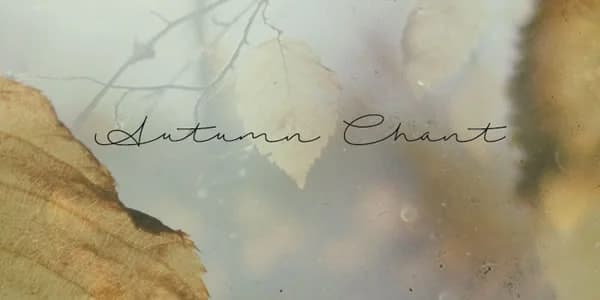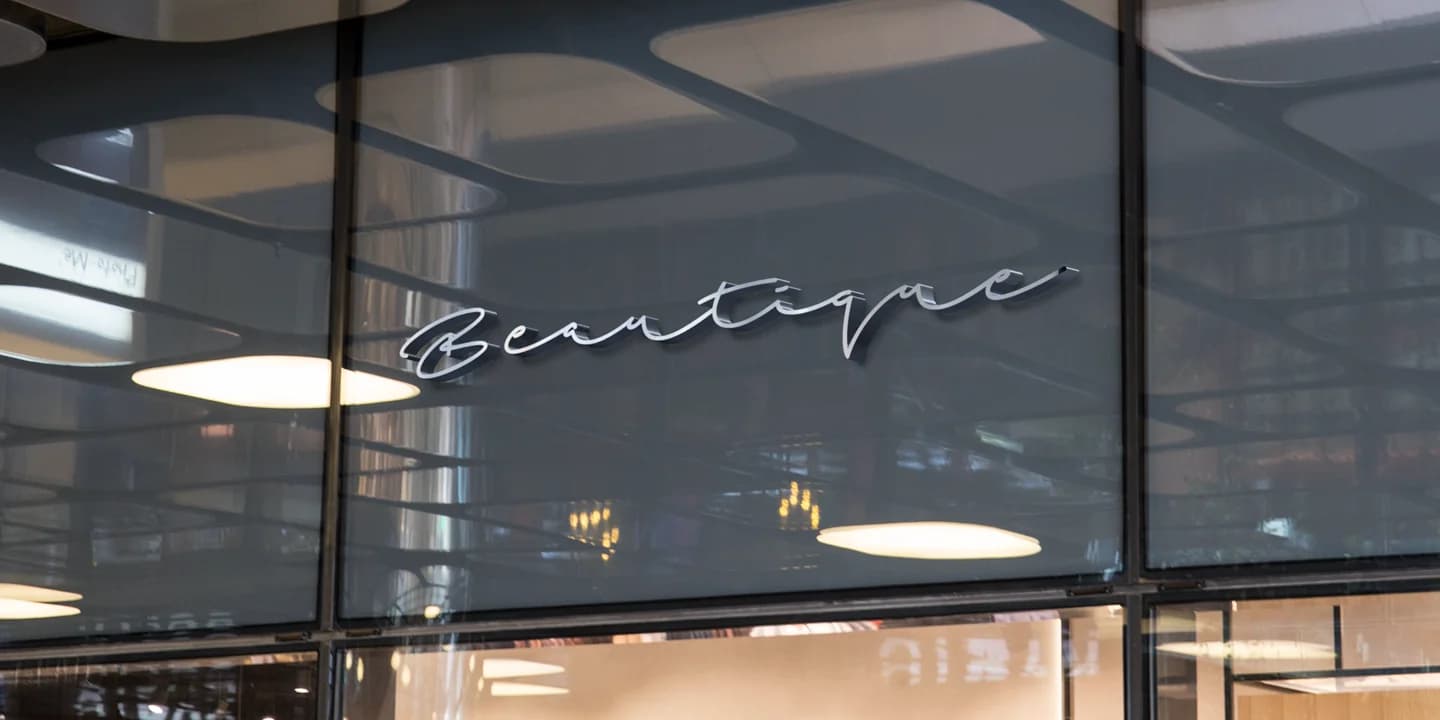
1 / 3About Beach Script Font
Beach Script by Roland Hüse Design is a monoline handwritten typeface with a casual, energetic personality that brings natural movement to contemporary typography. This font captures the relaxed rhythm of hand-lettering while maintaining excellent legibility across various sizes, making it equally at home in wedding invitation suites, editorial feature spreads, lifestyle brand identities, and custom event signage. The consistent single-weight construction provides reliable stroke flow, and the font's informal character lends itself beautifully to decorative headlines and branding applications where personality matters more than formality. Whether you're designing modern greeting cards, creating Etsy shop logos, or building social media graphics that need to stand out in crowded digital feeds, Beach Script delivers approachable elegance without pretense. The typeface performs particularly well in larger point sizes where its organic letterforms become a natural visual focal point, commanding attention naturally. Its energetic sensibility makes it well-suited for fashion brands, wellness companies, boutique retailers, and creative businesses seeking to infuse genuine human warmth into their visual identity. The font's accessible approachability means it works across diverse applications, from packaging design to custom wall signage to digital illustrations and beyond. Get Beach Script on Creative Fabrica and bring authentic character and energy to your next creative project.
- Elegant, Flowing, Beach Script
Beach Script Font is a script font that shines as a display or heading face. Pair it with a clean sans-serif or serif font for body text — the contrast creates a clear hierarchy while the two styles stay balanced and easy to read.
Beach Script Font